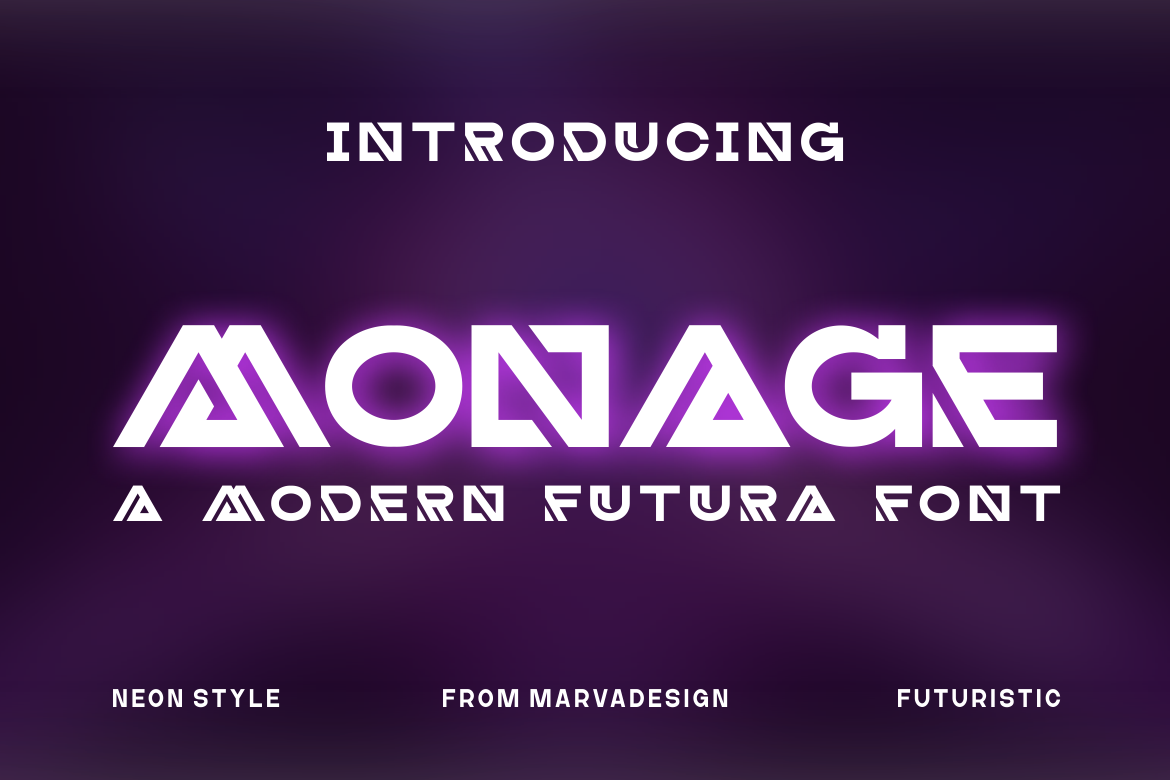
Monage - A Modern Futuristic Font
Introducing our new product Monage Font - Modern Font is a bold and authentic display font. The font is suitable for any branding project like logo, Template Design, Product and many more. outstanding in a wide range of contexts.